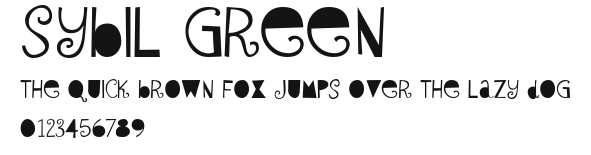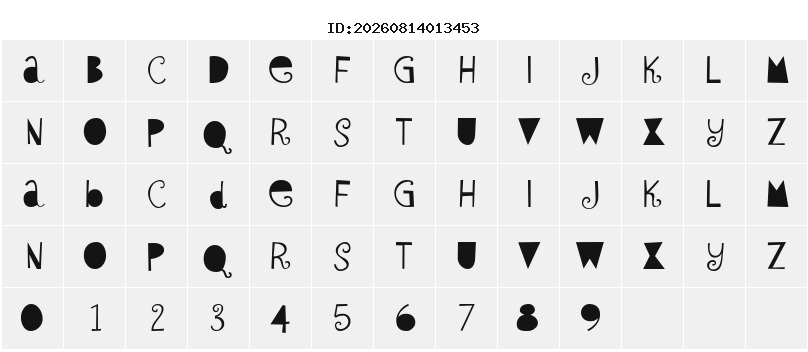
Sybil Green Preview
• Font Name: Sybil Green
• Font ID: Sybil Green
• Full Font Name: Sybil Green
• PostScript Name: SybilGreen
• Character Count: 527
About Sybil Green.ttf
Sybil Green.ttf is a modern, elegant sans-serif font designed for ultimate readability and visual harmony. Perfect for branding, headlines, web design, and print materials.